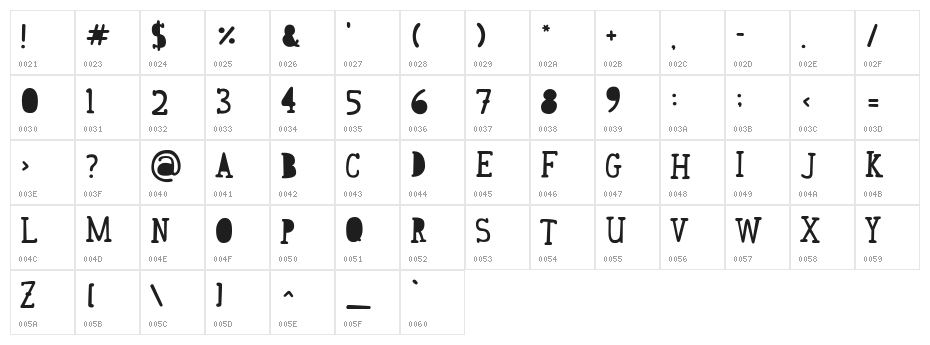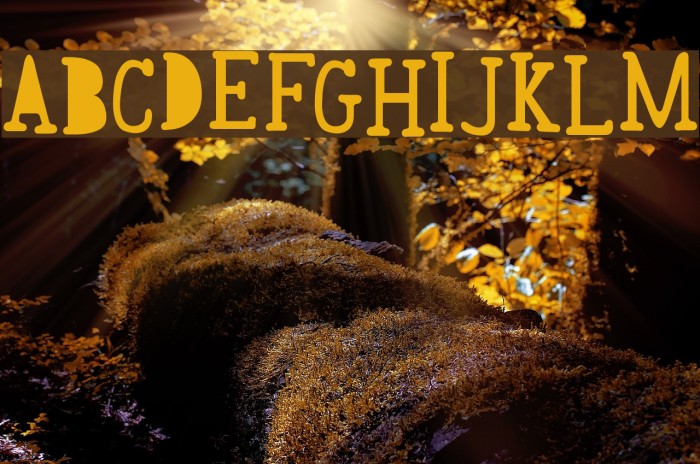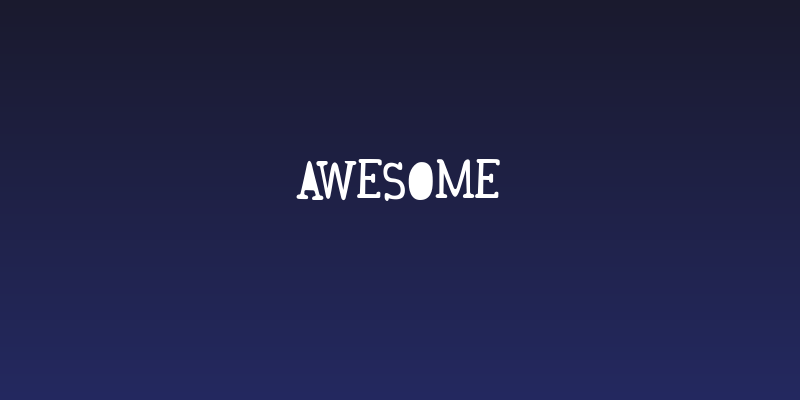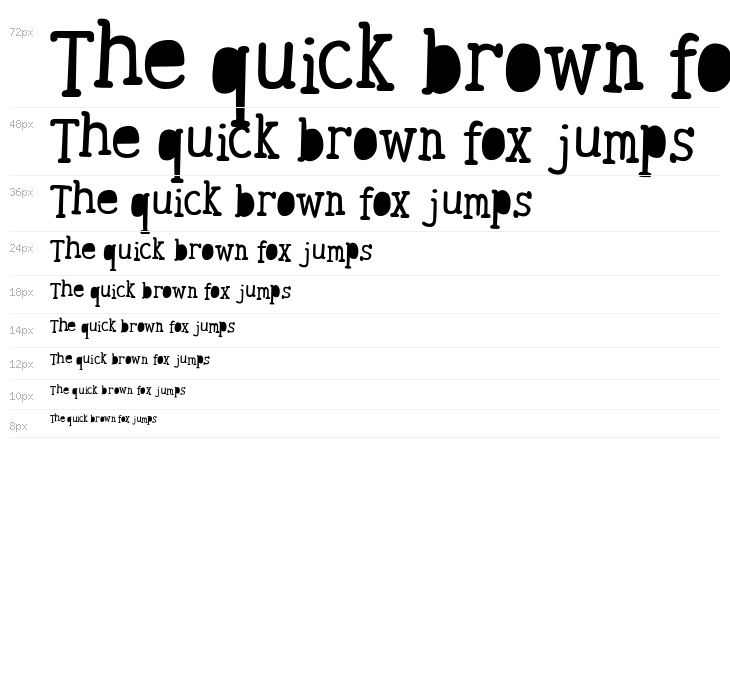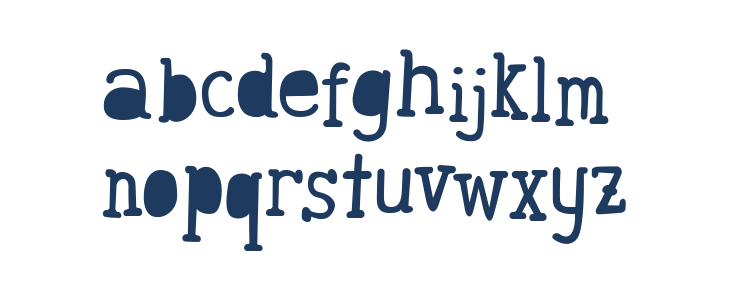
Awesome Font
Awesome Description
This font features a playful and bold design, characterized by its thick, rounded serifs and uniform stroke width. The uppercase letters are robust and slightly condensed, while the lowercase letters maintain a consistent height with a whimsical flair. The numbers are equally bold, with a distinct, rounded style that complements the overall aesthetic. The special characters are designed to match the playful nature of the font, making it suitable for creative and informal applications.